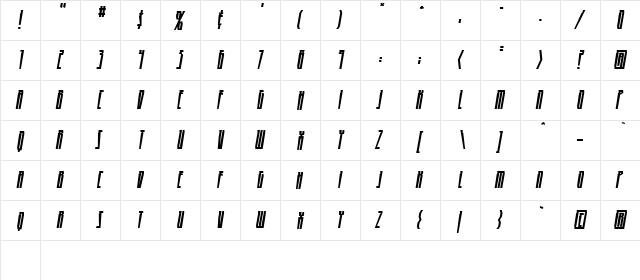
HighRise BB Italic
Italic · Nate Piekos. Blambot.com Nate Piekos ·
Design Context for HighRise BB Typeface
HighRise BB offers clean, dependable letterforms without strong stylistic allegiance, making it a practical choice for designers who need flexibility. Its italic angle brings a sense of urgency and motion to the letterforms.
Pro Tip: Try HighRise BB for annotation and caption copy alongside an upright companion — the contrast in angle creates a dynamic but ordered typographic system.